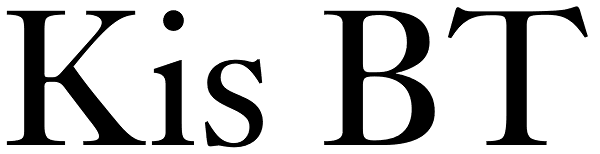
Kis
The Bitstream version of Linotype Janson. Nicholas Kis (Miklos Kis) was a Hungarian punchcutter who worked in Amsterdam. His types are some of the greatest in the Dutch old face style and have been used as models for a number of developments in this...
Kis BT
Kis BT Italic